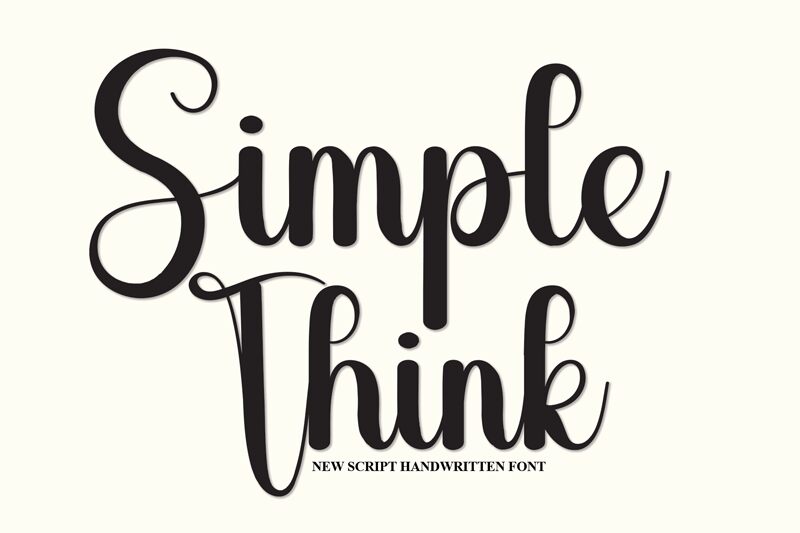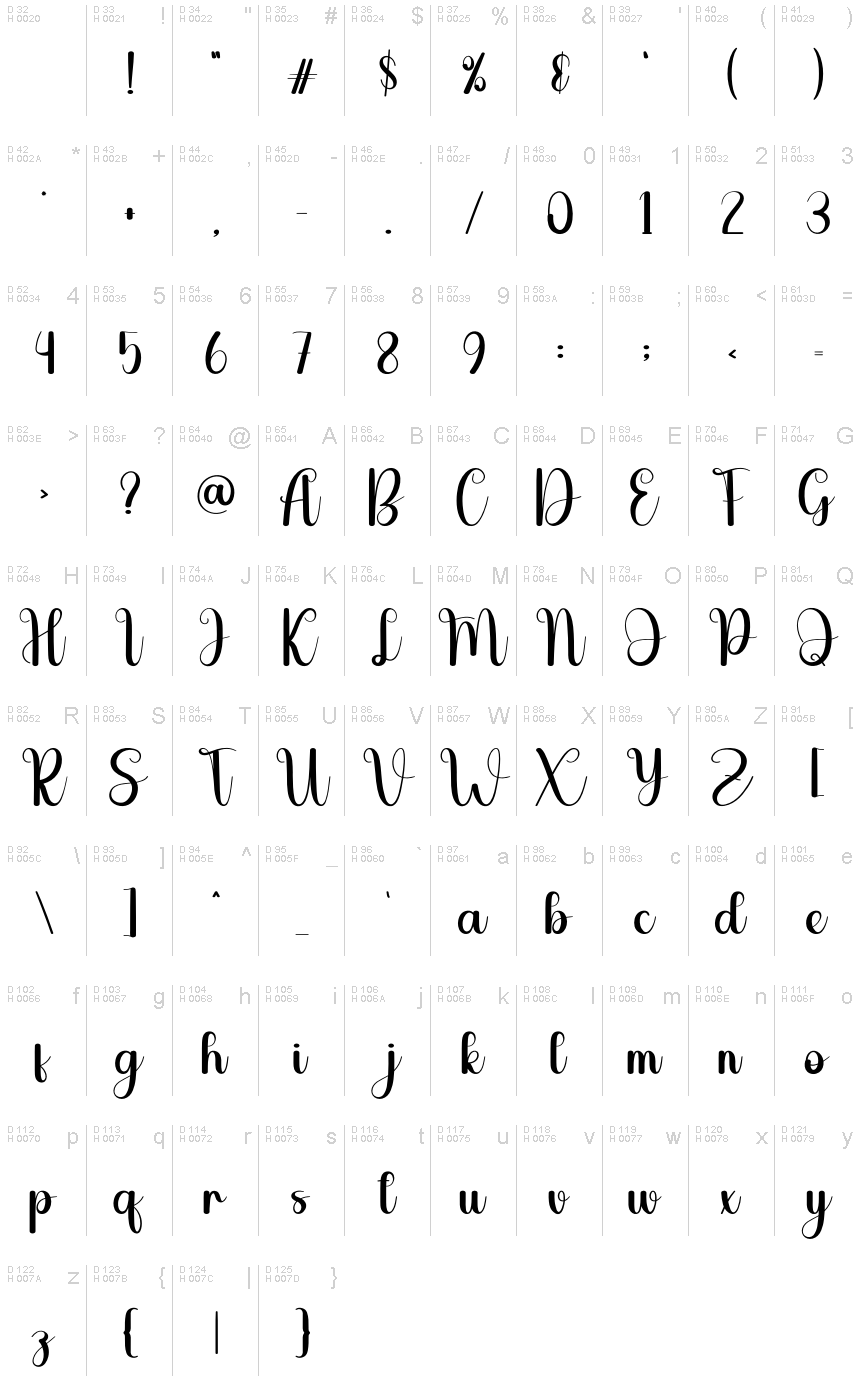
SimpleThink
SimpleThink, crafted by Scratchones, embodies the grace of calligraphy with a modern twist. Its sweeping curves and elegant strokes offer a visual symphony that resonates with sophistication. This font dances between classic artistry and contemporary finesse, making it a versatile choice for various design needs.
SimpleThink's charm lies in its ability to convey warmth and personality, ideal for invitations, branding, and editorial work where a touch of elegance is desired. Its thoughtful composition allows for readability while maintaining an artistic flair, ensuring that your message is not just seen but felt. Embrace the allure of SimpleThink to elevate your next project with its distinctively chic character.